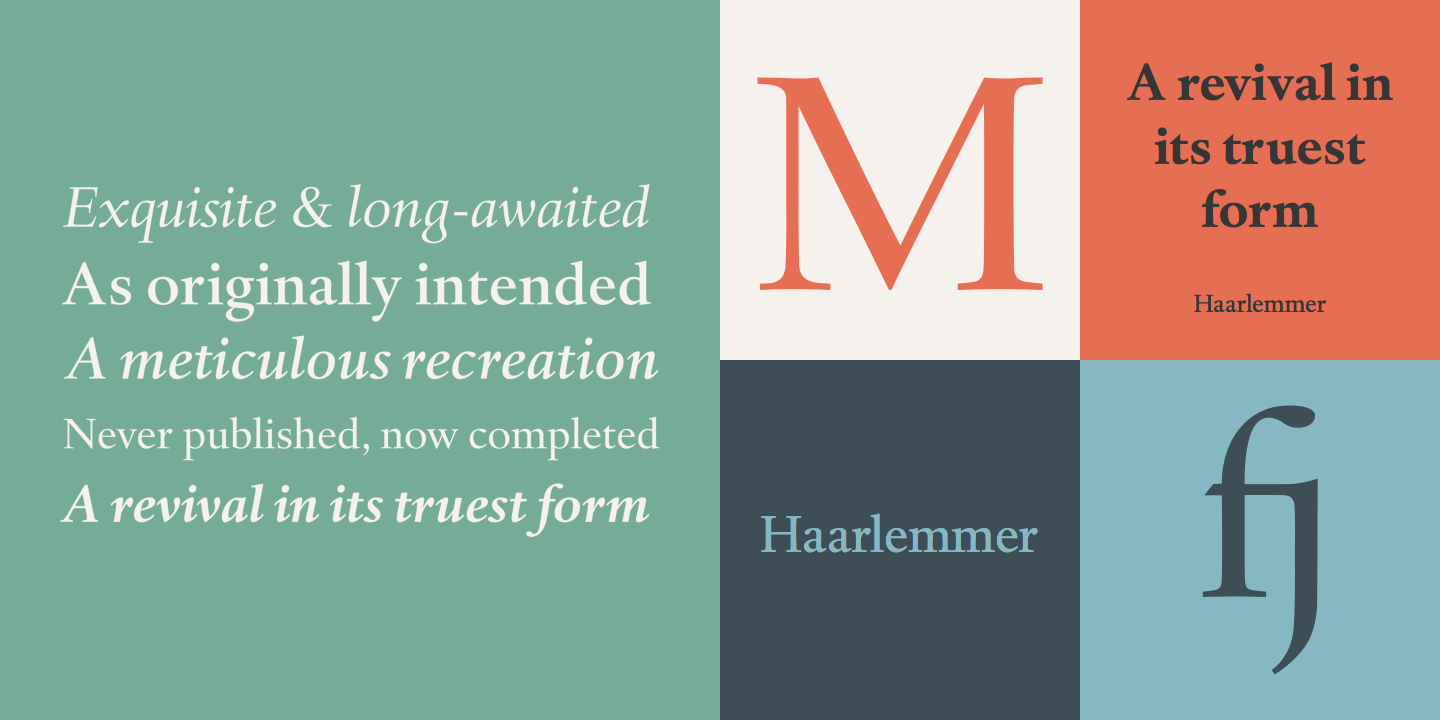
Haarlemmer Font is a charming serif typeface inspired by vintage Dutch typography, perfect for editorial design, branding, packaging, and artistic projects. Its classic yet quirky style adds personality and warmth to any design.
What makes Haarlemmer Font Free Download so exciting is its distinctive letterforms and elegant curves, which provide a unique blend of tradition and creativity, making your designs truly stand out.
The Haarlemmer Font family typically includes multiple weights and styles such as Regular, Italic, and Bold, offering versatility to build rich typographic hierarchies.
Whether you’re designing book covers, posters, or stylish logos, Haarlemmer Font Free Download adds a nostalgic yet fresh touch that captivates and engages your audience.